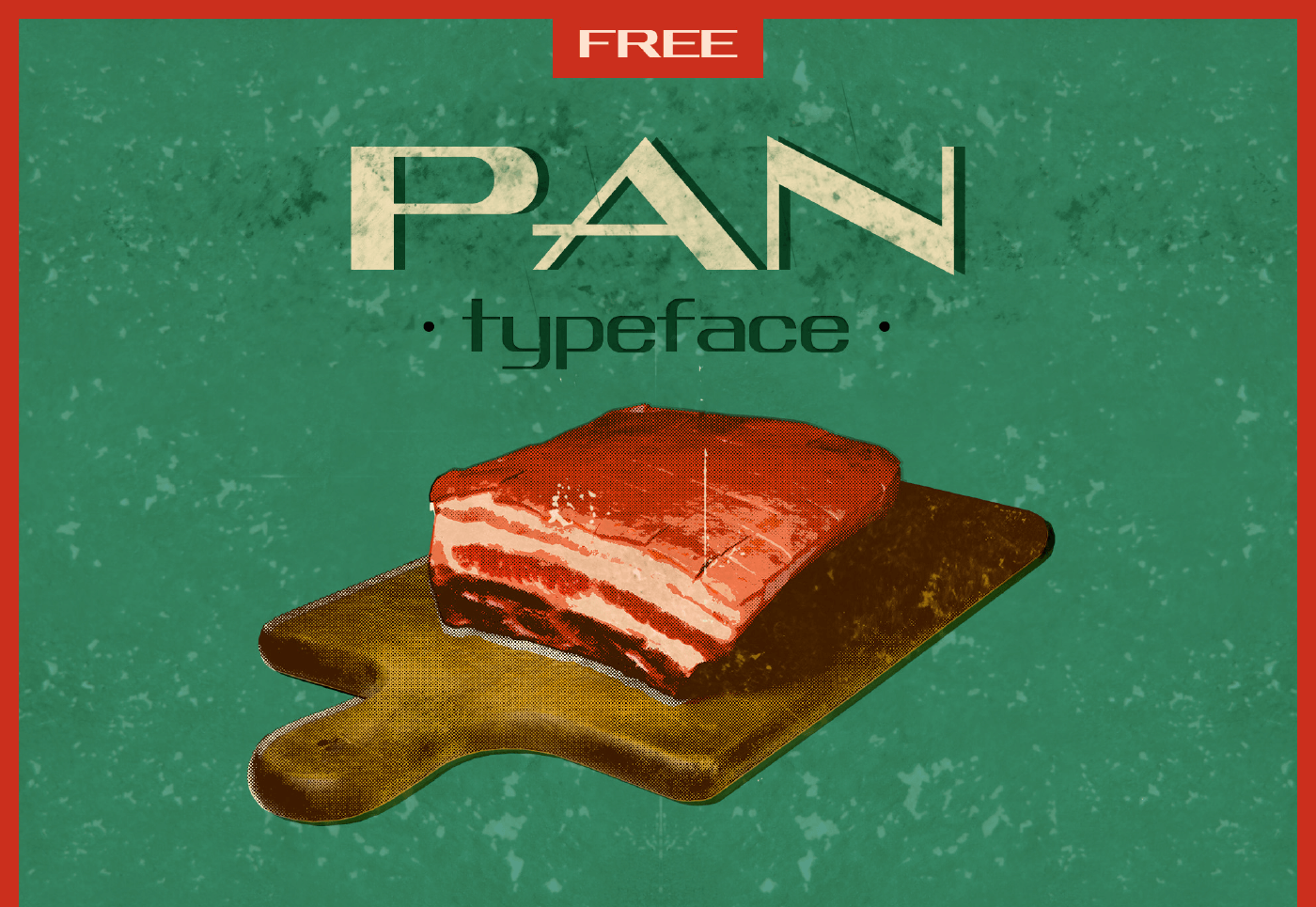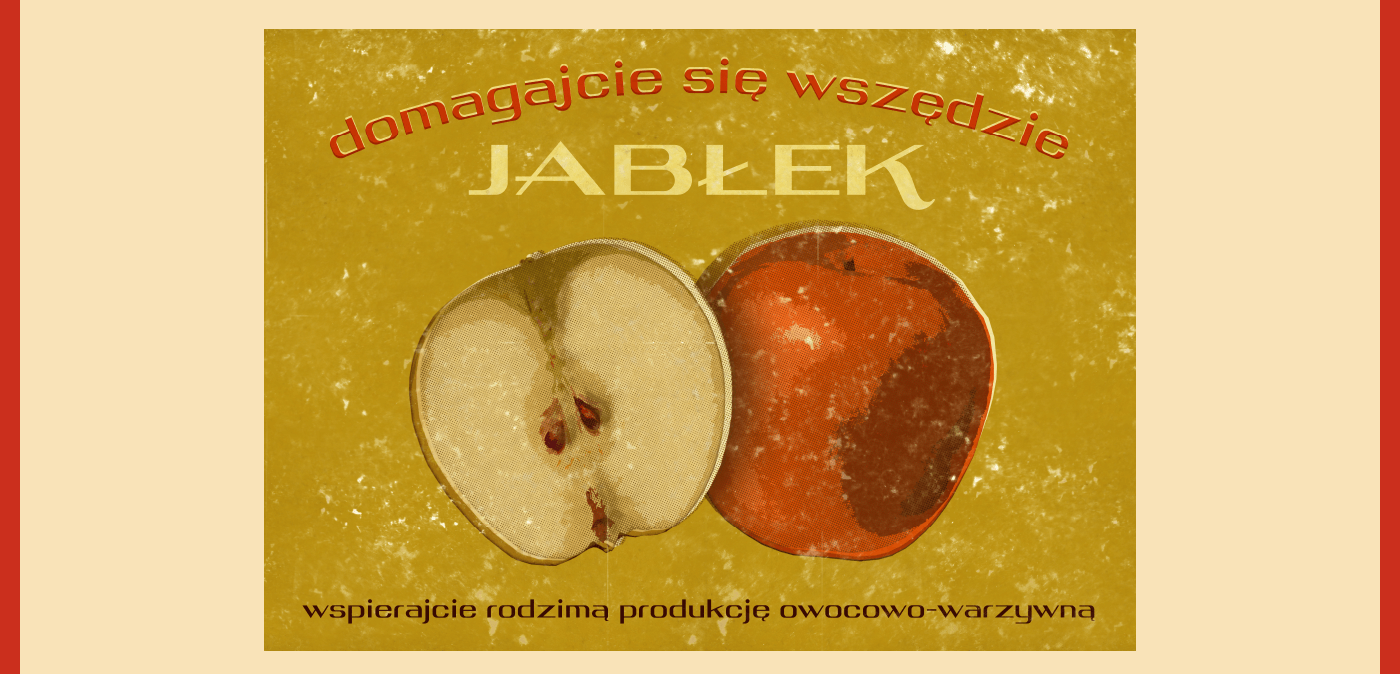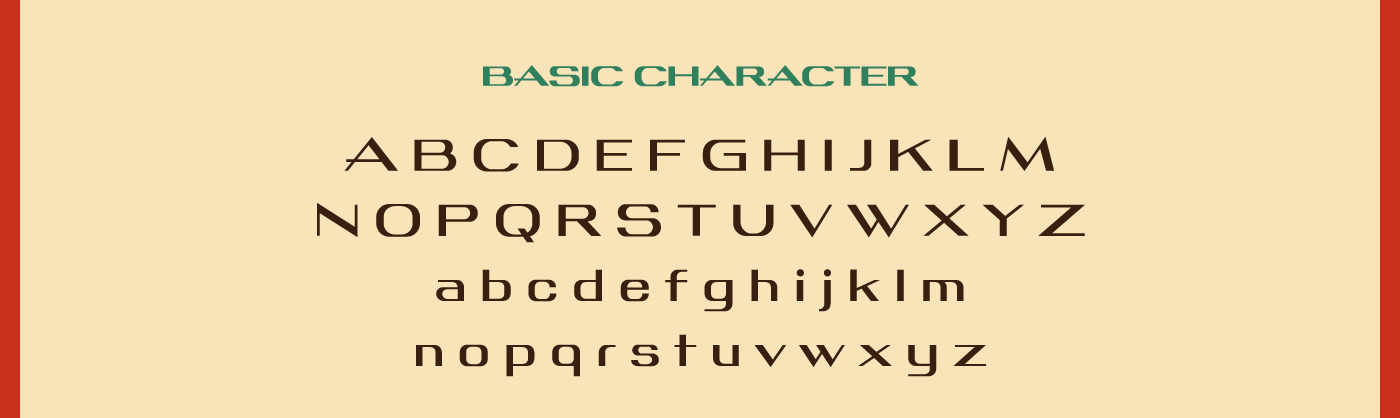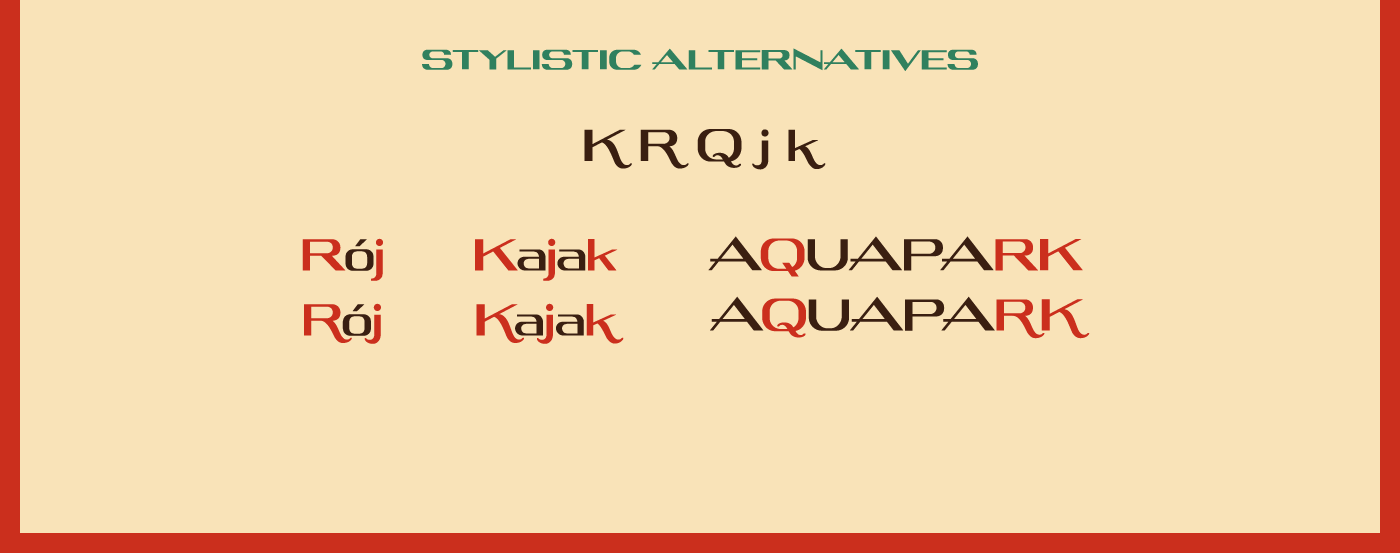
Pan free typeface
Pan free typeface it’s a sans serif that looks great for vintage look projects. It comes with four styles – Regular, Oblique, Expanded and Expanded Oblique. It also has some stylistic alternatives and international characters. Great for headlines, logos, posters, flyers it’s a cool design resource and it’s free.
Pan typeface